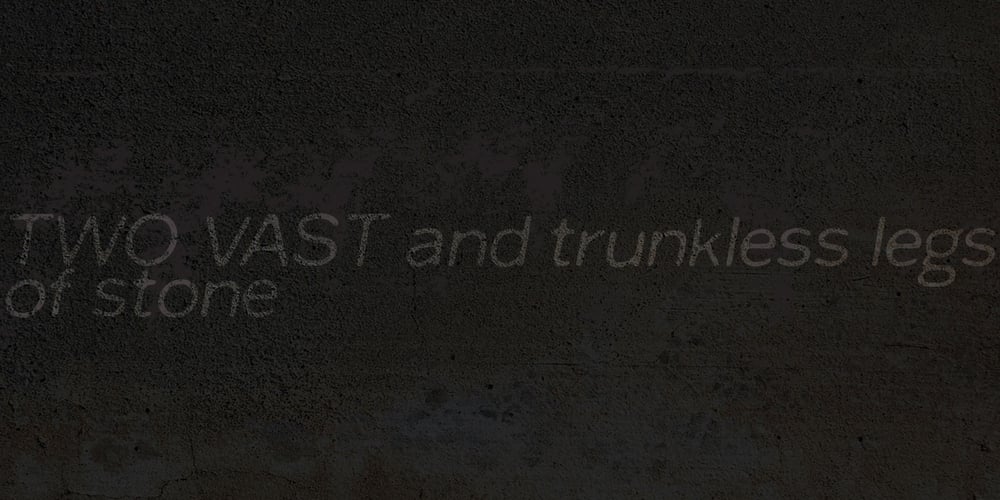
Worn Gothic Font Family was designed by Nathan Williams and published by Baseline Fonts. Worn Gothic contains 3 styles and family package options. Worn Gothic, a typeface from the Grit History™ B family, creates rock solid text– characters that are weathered, defined and strong, like the body of a gargoyle. Worn Gothic is rugged but legible, whose words stay firmly liquid, like dates stamped in concrete. Disjointed K legs create an unnerving look that makes you stare into the structure of the type. Oddities like this complement the integrity of its fluctuating strokes and consistent X-Height. It offers a few stylistic alternates to maintain readability at any size, in many languages. Worn Gothic offers full Greek character support as well as all punctuation.